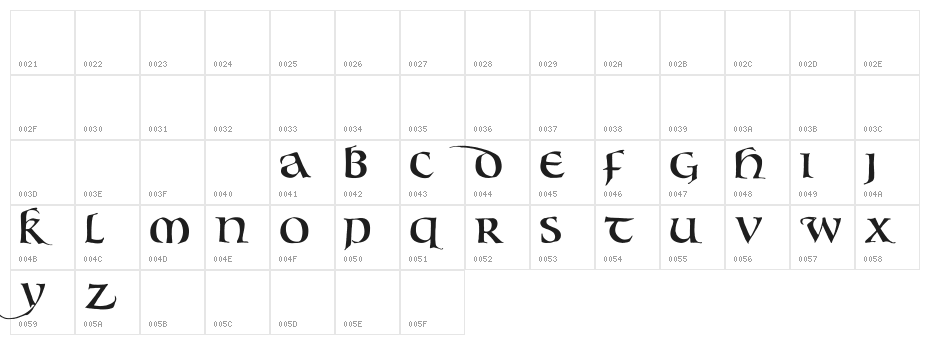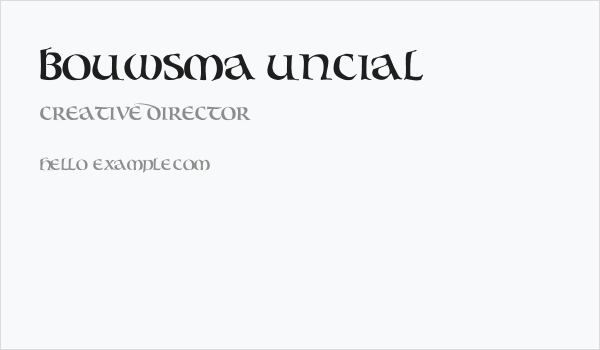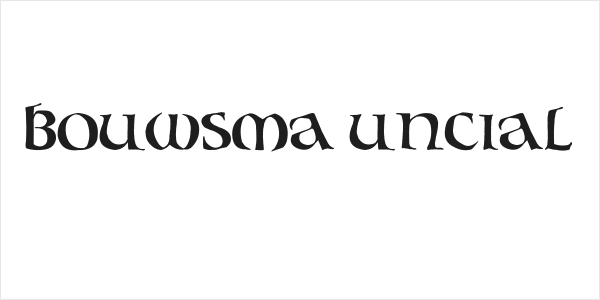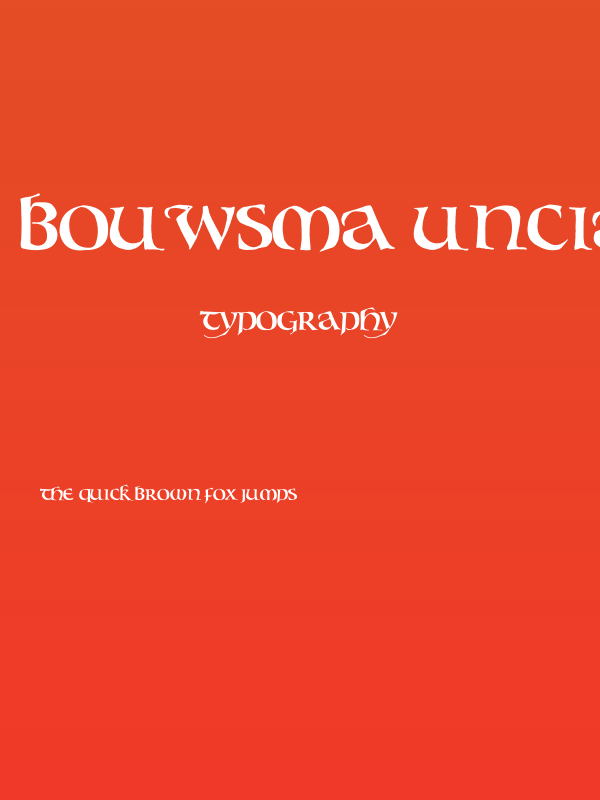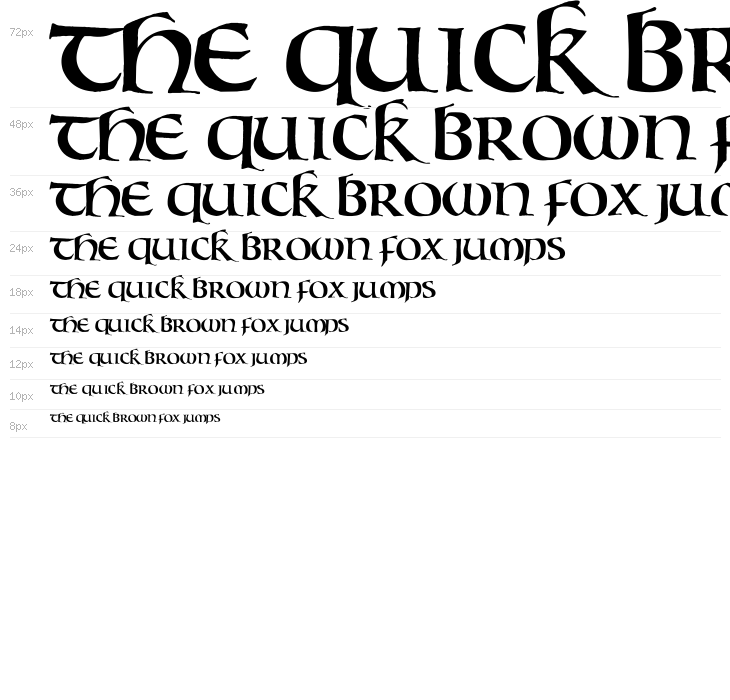
Bouwsma Uncial Font
Bouwsma Uncial Description
This font exhibits a classic and historical style reminiscent of medieval script. It features bold, sweeping strokes with a high contrast between thick and thin lines, giving it a dramatic and ornate appearance. The characters are intricately designed with unique flourishes and curves, particularly noticeable in the uppercase letters. The lowercase letters maintain a consistent style, complementing the uppercase with their own subtle embellishments. This font's design is both decorative and functional, making it suitable for projects that require a touch of elegance and tradition.
| Proposed Projects | Ideal for historical documents, invitations, book covers, and branding that requires a traditional or medieval aesthetic. |